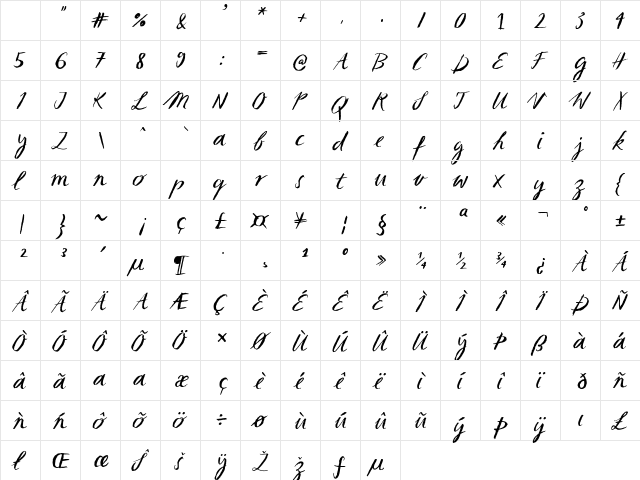
Complete Sketch Script (Limited Set) Regular glyph index. Displaying only characters natively supported by Sketch Script (Limited Set) Regular font.
Sketch Script (Limited Set) flows with the natural rhythm of handwritten lettering, making it ideal for designs that call for warmth and personal expression.
Font Pairing: Combine Sketch Script (Limited Set) with a simple geometric sans for maximum contrast - the tension between flowing curves and clean structure is a classic typographic pairing.
Pro Tip: Use Sketch Script (Limited Set) for short runs of text - names, titles, or taglines. Extended body copy in script faces tires the eye quickly.